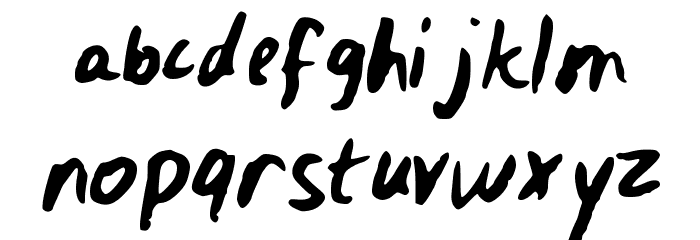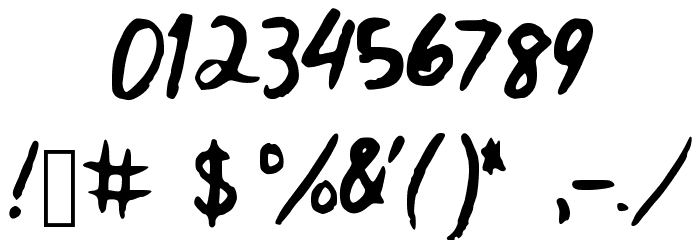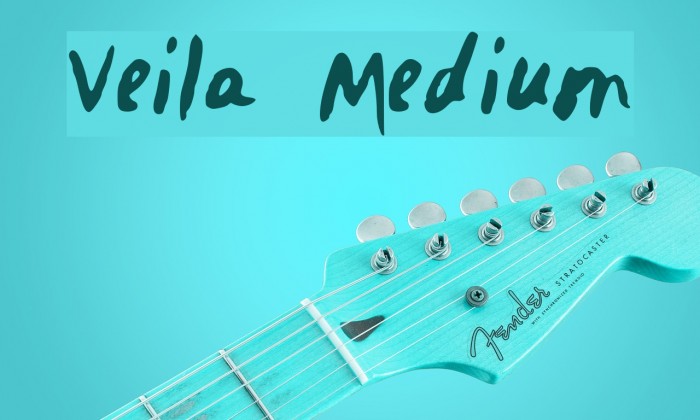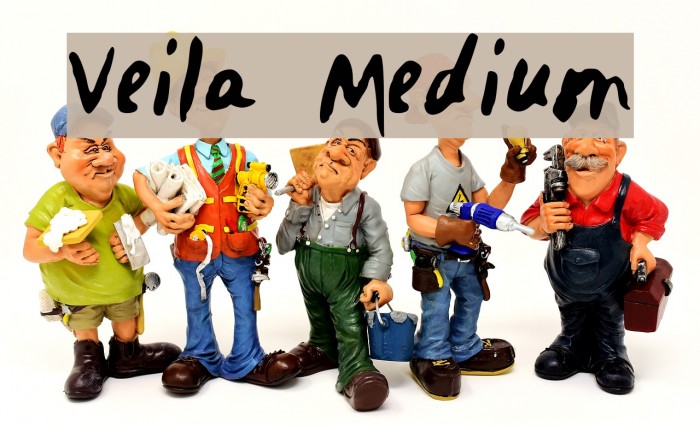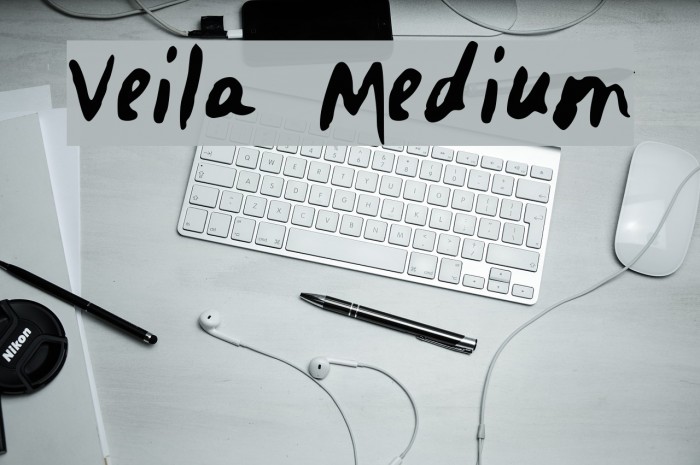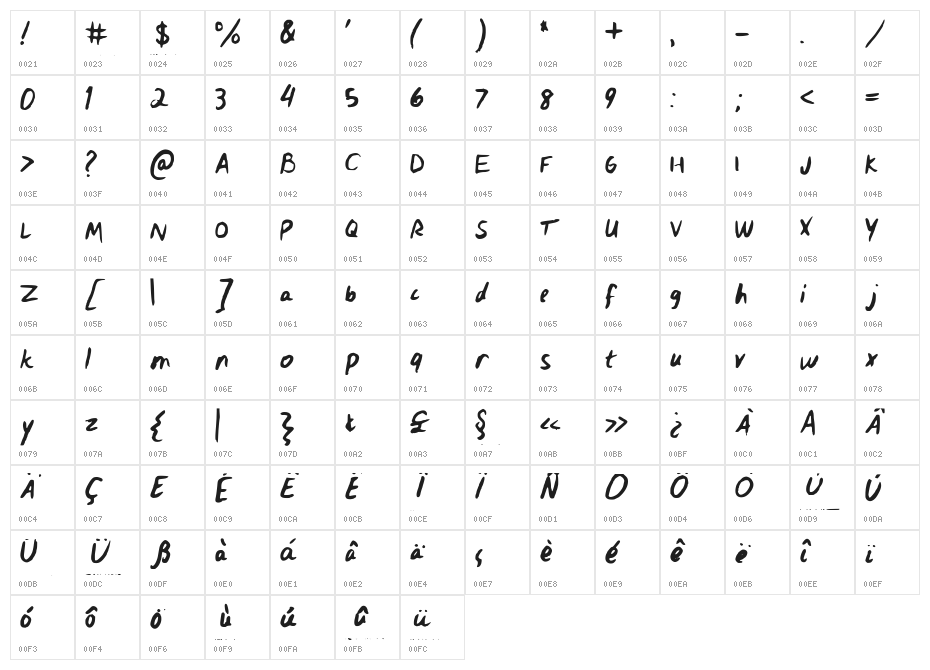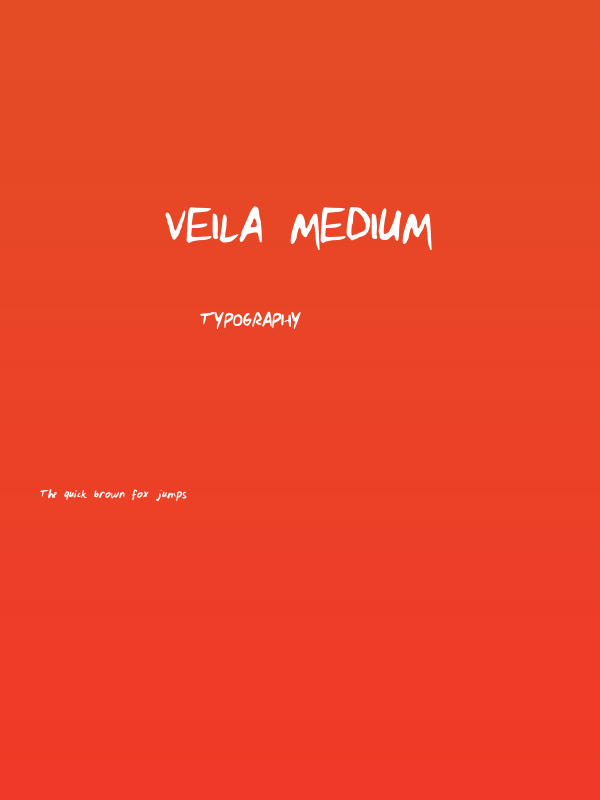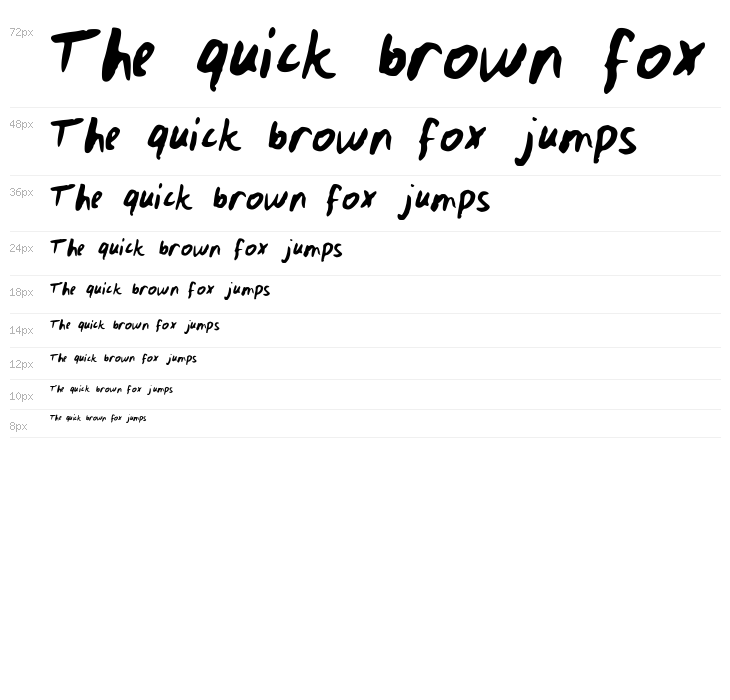
Veila Medium Font
This font features a handwritten style with a casual and organic feel. The letters are bold and slightly irregular, giving them a dynamic and lively appearance. The strokes are thick and consistent, creating a strong visual impact. The uppercase and lowercase letters maintain a cohesive style, with rounded edges and a playful character. The numerals and special characters follow the same design principles, ensuring uniformity across all elements. This font is ideal for projects that require a personal touch or a creative flair.
A bold, handwritten font with a dynamic and playful style.
- Proposed Projects: Ideal for greeting cards, invitations, posters, and branding projects that require a personal and creative touch.